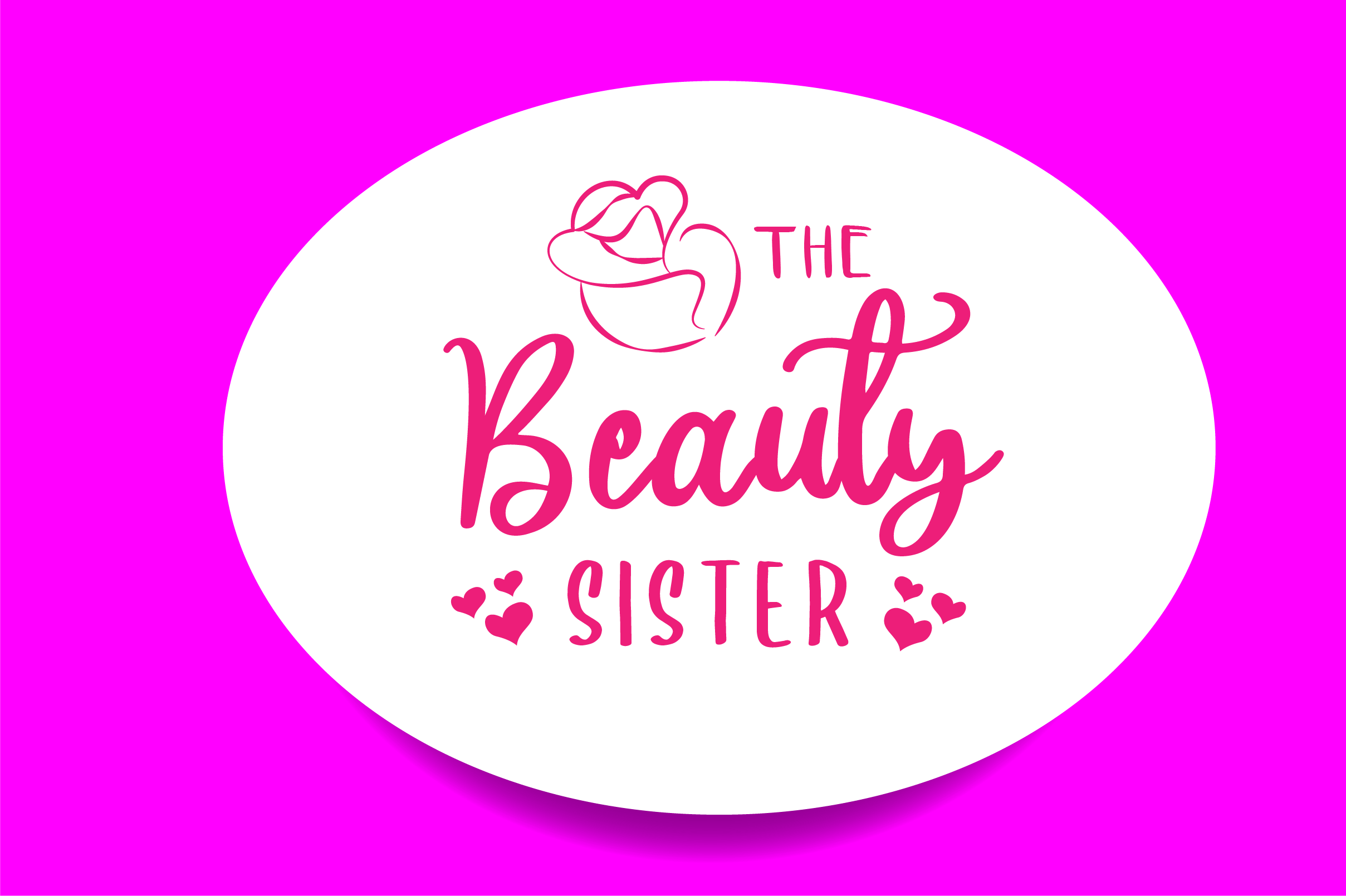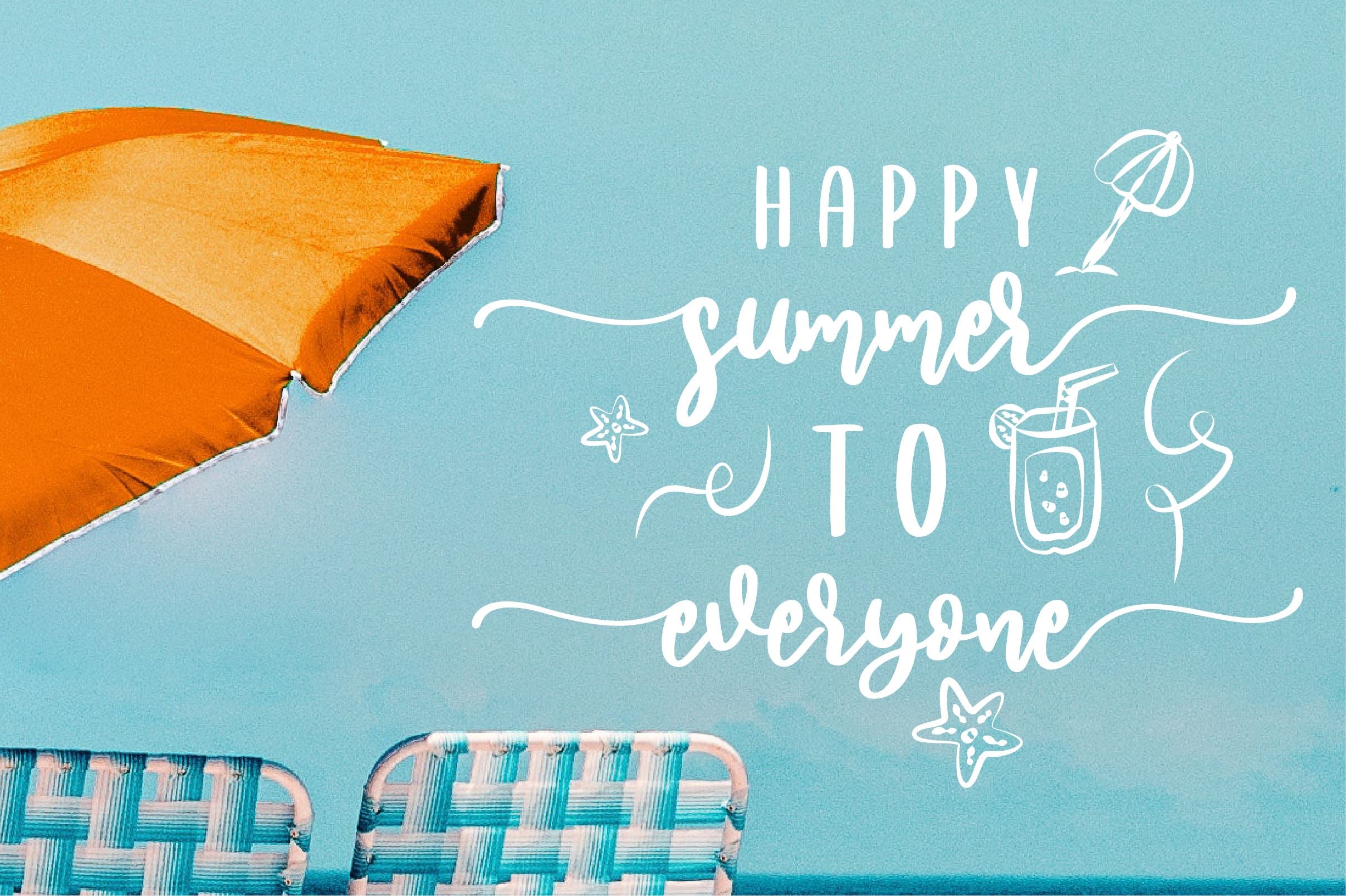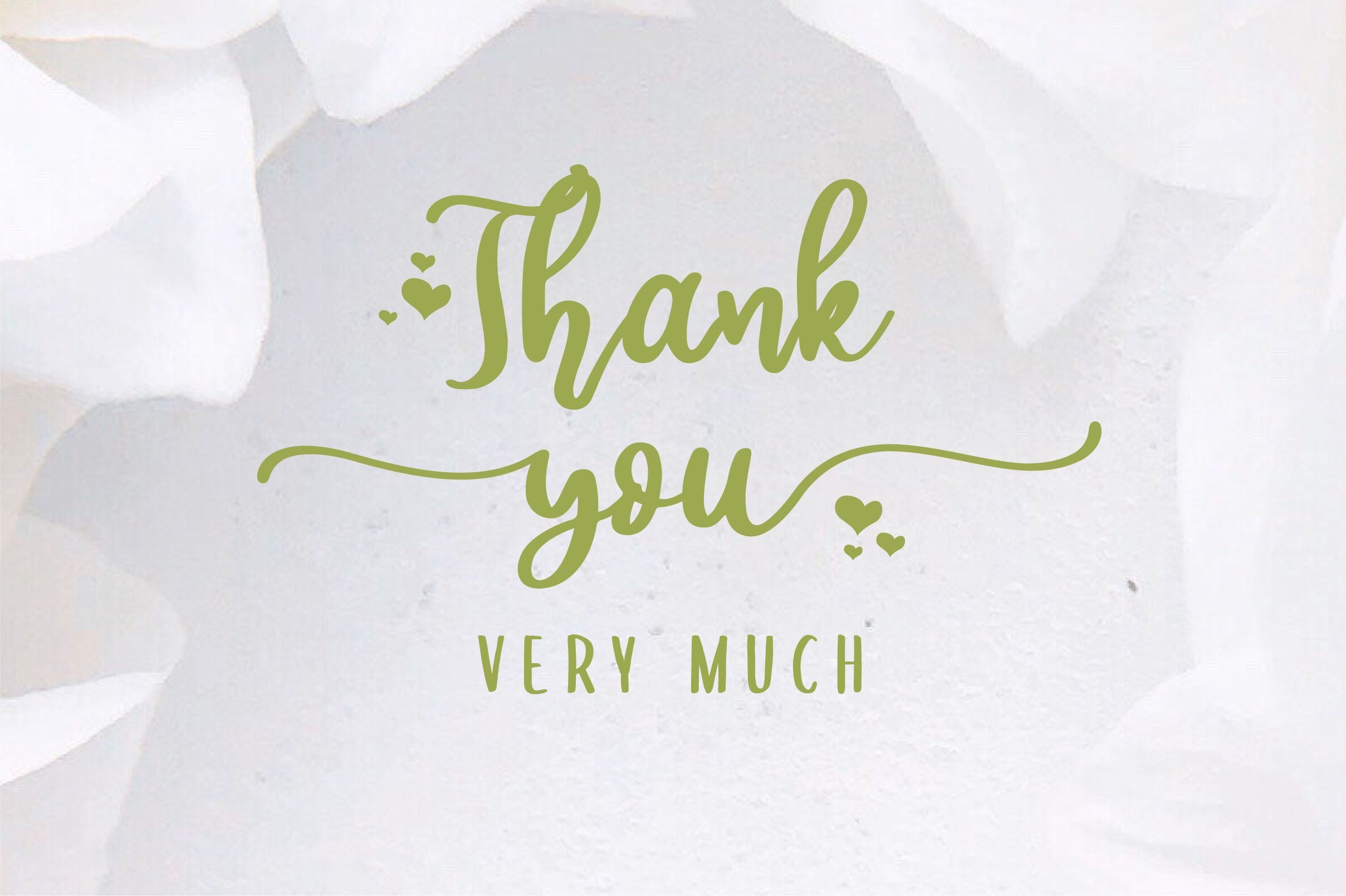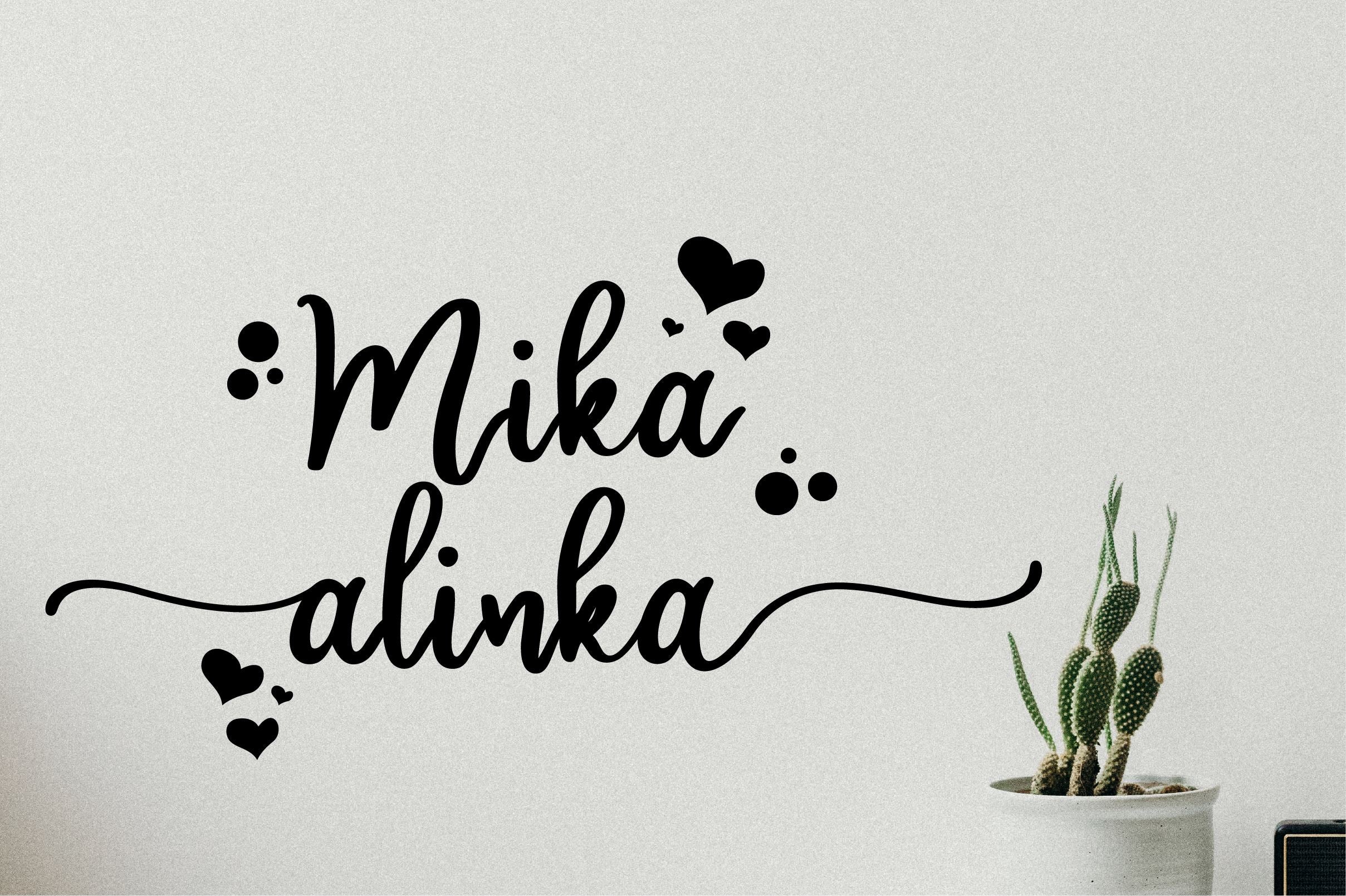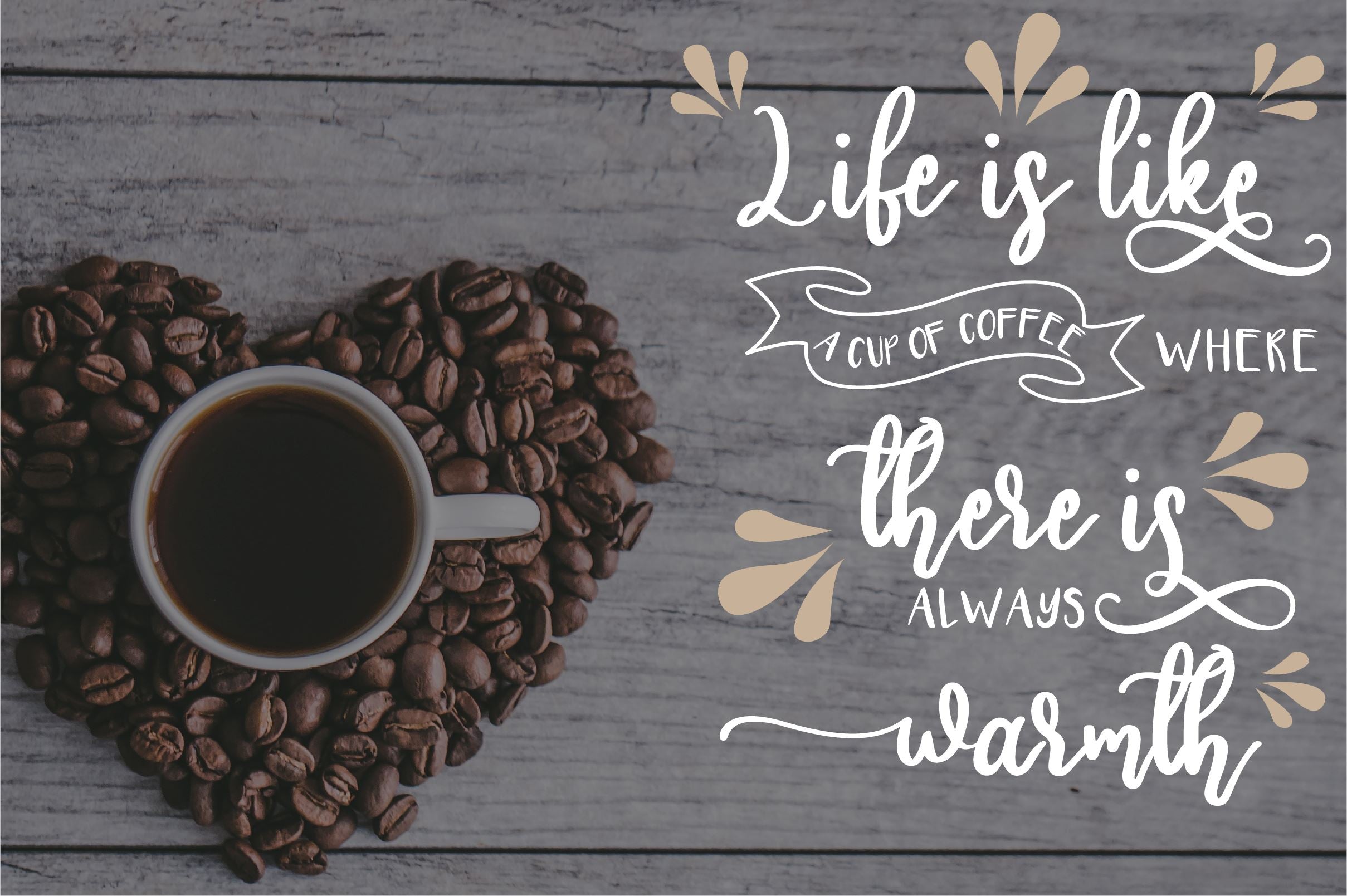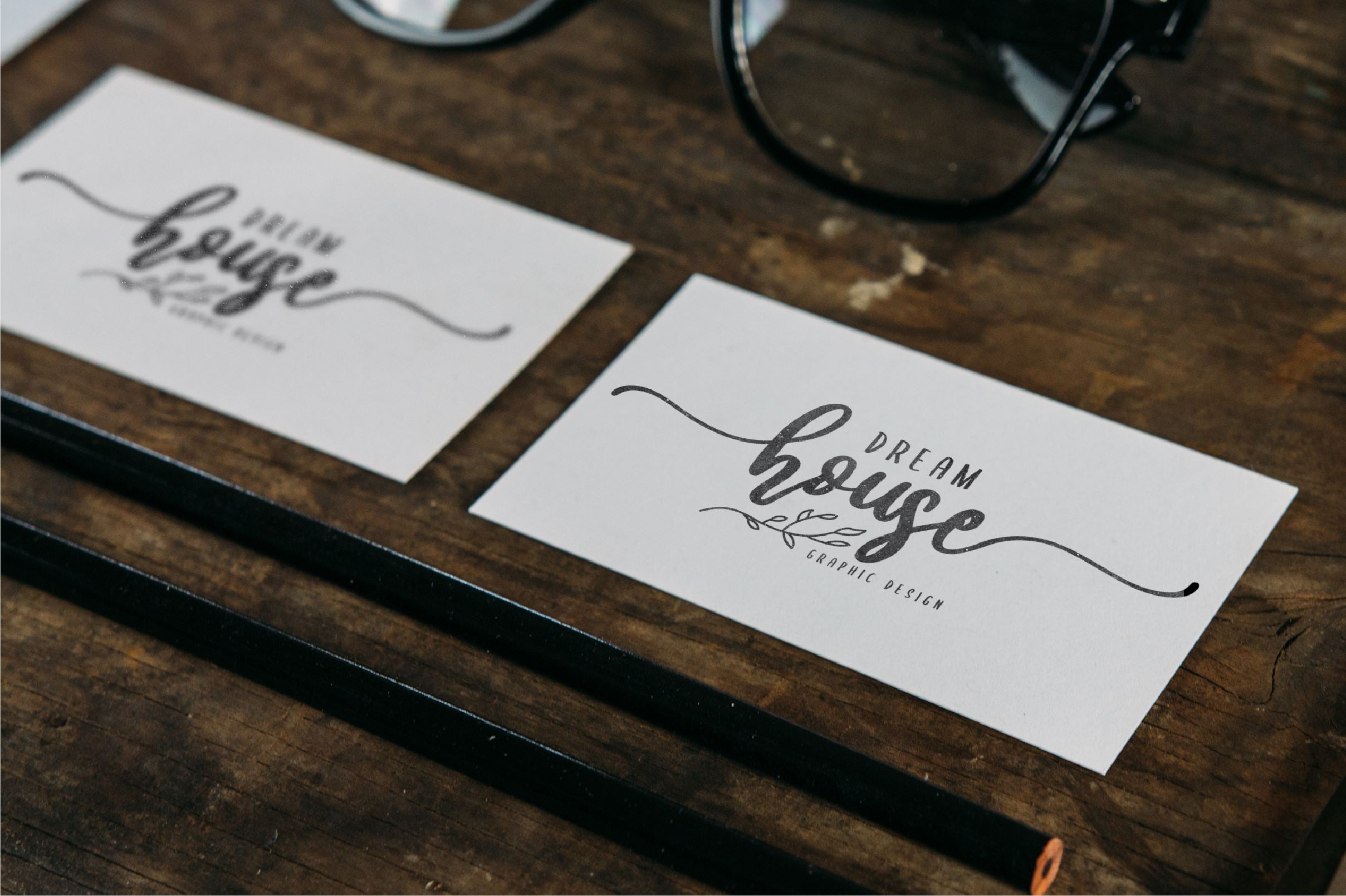
hilda script
About hilda script
introducing hilda script, a stylish Font Style. This beautiful script font offers your personal touch to your latest art project with elegant, classy and modern look. The hilda Script offers gorgeous typographic perfect for many different projects such as logos & branding, invitations, stationery, wedding designs, social media posts, advertisements, product packaging, product designs, labels, photography, watermarks, special events or anything that needs handwriting taste. What’s Included: hilda OTF hildaTTF Numeral and punctuation 67 Swashes & Ligatures International Language Works on PC & Mac Simple installations